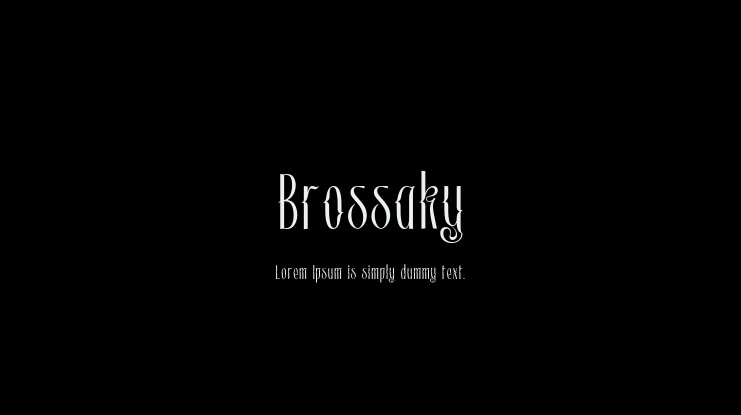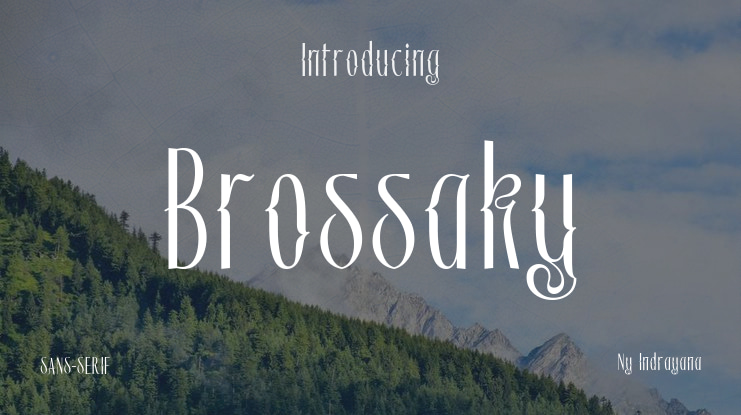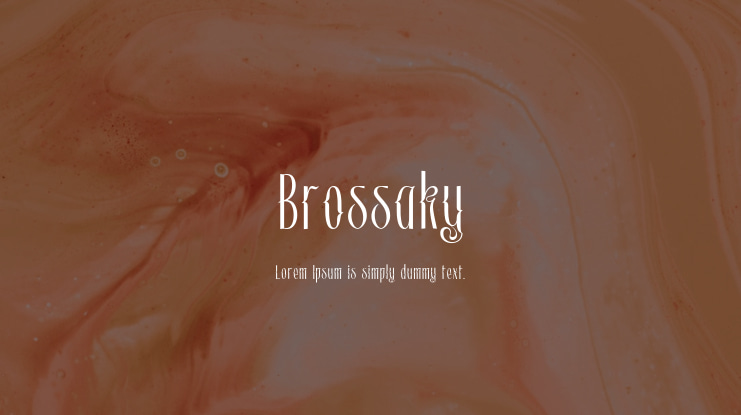
Brossaky Font
Introducing the Brossaky Typeface - a contemporary sans serif font specially crafted to enhance your projects with its modern and sophisticated letterforms. This distinct typeface includes elegant ribbon-like alternatives that bring a touch of refinement to any design. Ideal for branding, web design, advertising, and more, the Brossaky Typeface seamlessly combines contemporary style with practical versatility.